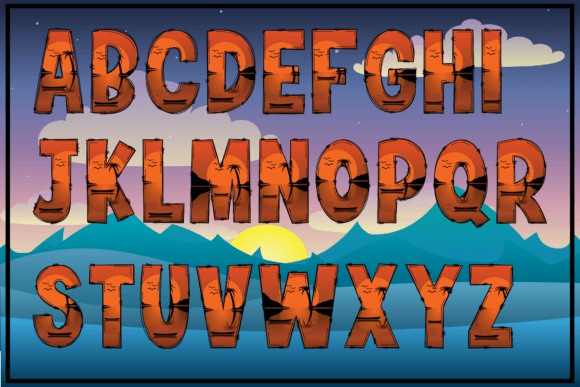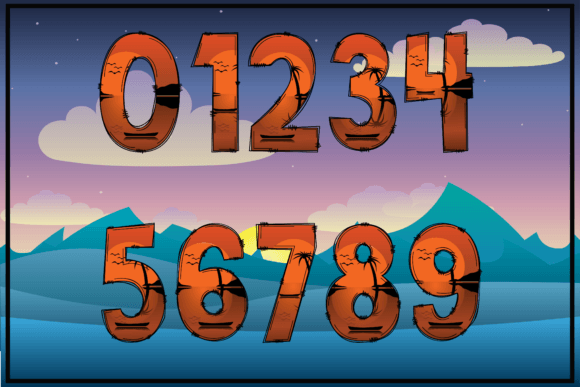
Unleash Your Creativity with Camp Font: The Cool, Original, and Fun Color Font
Are you a designer or crafter looking for a unique and exciting way to elevate your designs? Look no further than Camp Font, the cool, original, and fun color font that’s taking the creative world by storm. With its cute and authentic aesthetic, Camp Font is the perfect addition to any project, and the only limit is your imagination!
What is Camp Font?
Camp Font is a one-of-a-kind color font that’s designed to add a touch of fun and whimsy to your designs. Its unique and playful style makes it perfect for a wide range of projects, from DIY crafts and scrapbooking to digital art and graphic design. Whether you’re creating something for personal use or for a client, Camp Font is sure to make your designs stand out.
Key Features of Camp Font
- Cute and Authentic Design: Camp Font has a charming and genuine aesthetic that’s sure to capture the hearts of designers and crafters alike.
- Color Font: Unlike traditional fonts, Camp Font comes in a range of colors, allowing you to add an extra pop of personality to your designs.
- Versatile: Camp Font can be used for a wide range of projects, from digital art and graphic design to DIY crafts and scrapbooking.
How to Use Camp Font in Your Designs
One of the best things about Camp Font is its versatility. Here are just a few ideas for how you can use it in your designs:
- DIY Crafts: Add a personal touch to your DIY crafts, such as handmade cards, gift tags, and decorations.
- Scrapbooking: Use Camp Font to add a fun and playful touch to your scrapbook pages.
- Digital Art: Incorporate Camp Font into your digital art projects, such as illustrations, graphics, and animations.
- Graphic Design: Use Camp Font to add a unique and creative element to your graphic design projects, such as logos, brochures, and posters.
Benefits of Using Camp Font
So why choose Camp Font for your designs? Here are just a few benefits of using this amazing color font:
- Stand Out from the Crowd: With its unique and playful style, Camp Font is sure to make your designs stand out from the crowd.
- Add a Personal Touch: Camp Font allows you to add a personal touch to your designs, making them more special and meaningful.
- Save Time: With Camp Font, you can create professional-looking designs in no time, thanks to its easy-to-use and versatile nature.
In conclusion, Camp Font is a cool, original, and fun color font that’s perfect for designers and crafters looking to add a unique and creative element to their designs. With its cute and authentic aesthetic, versatility, and ease of use, Camp Font is sure to become a favorite in your design arsenal. So why wait? Download Camp Font today and unleash your creativity!
The only limit is your imagination, so don’t be afraid to get creative and experiment with different designs and projects. Whether you’re a seasoned designer or a crafty beginner, Camp Font is the perfect tool to help you bring your ideas to life.